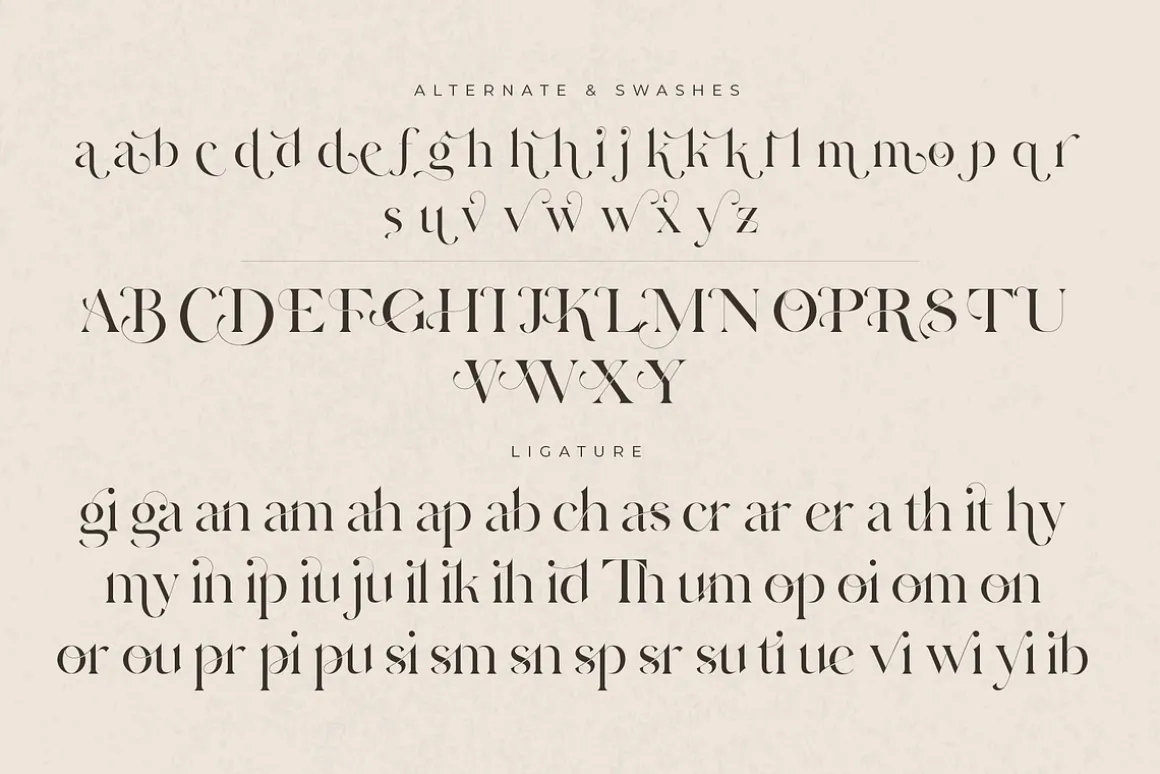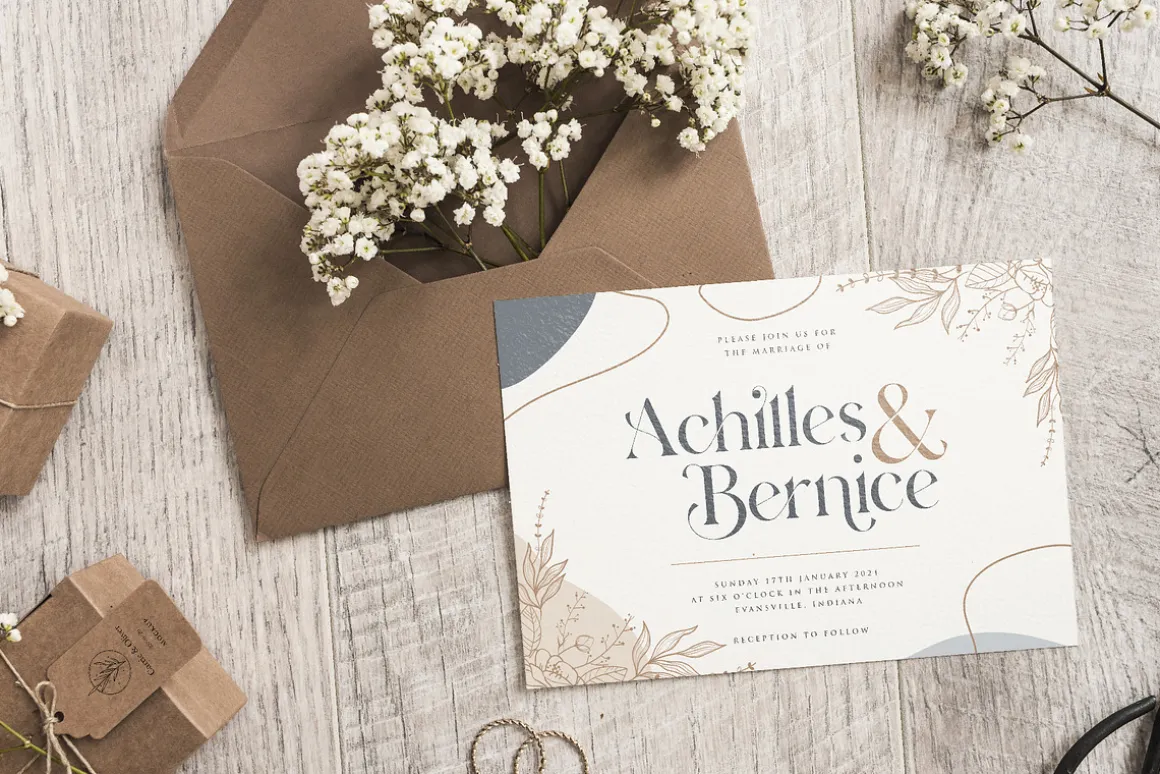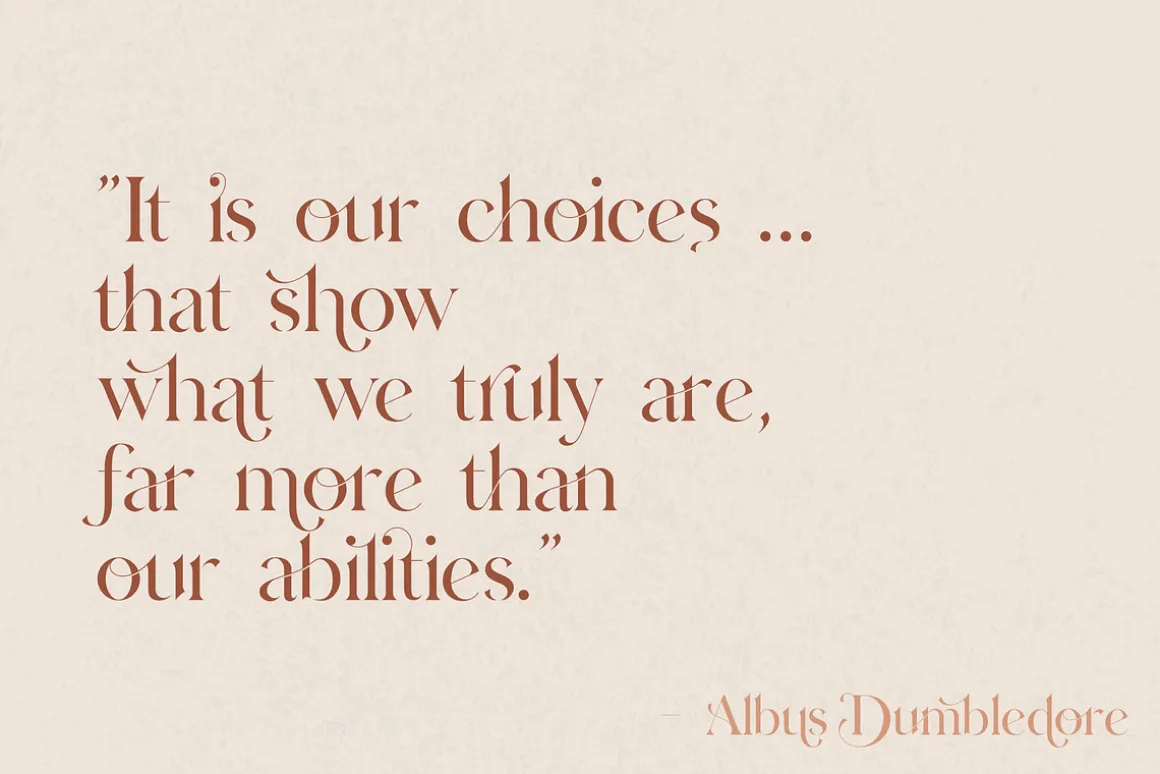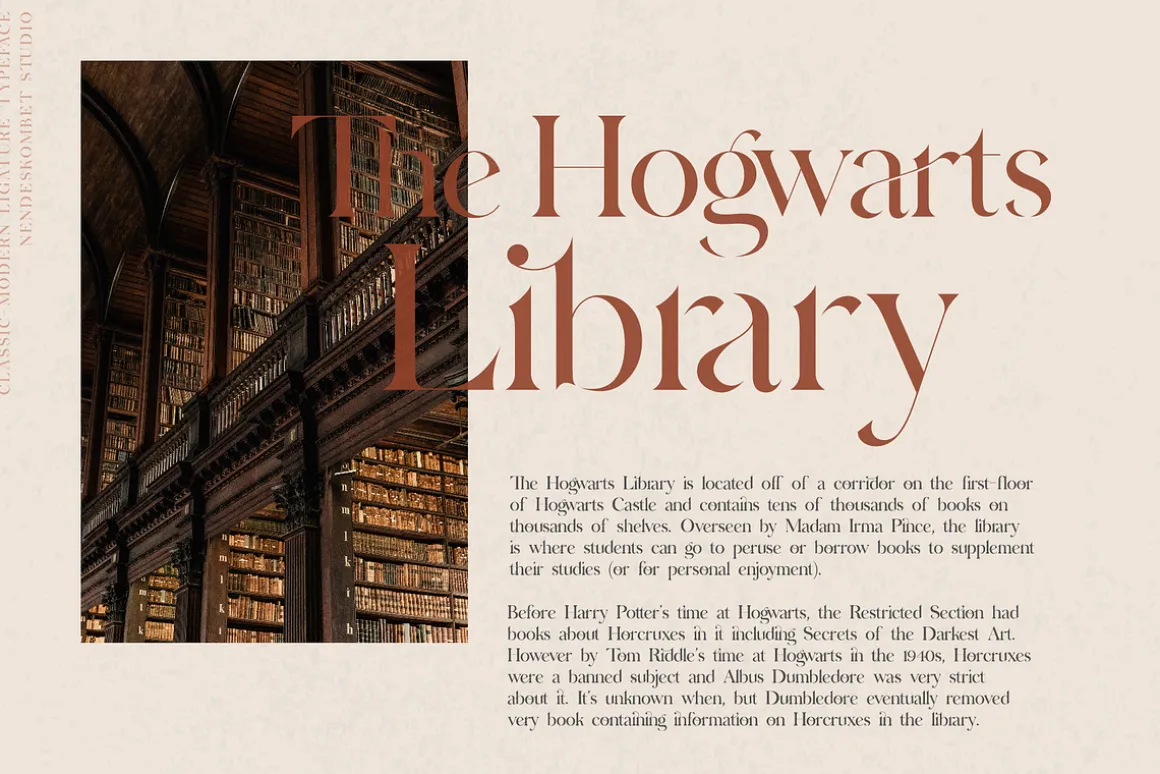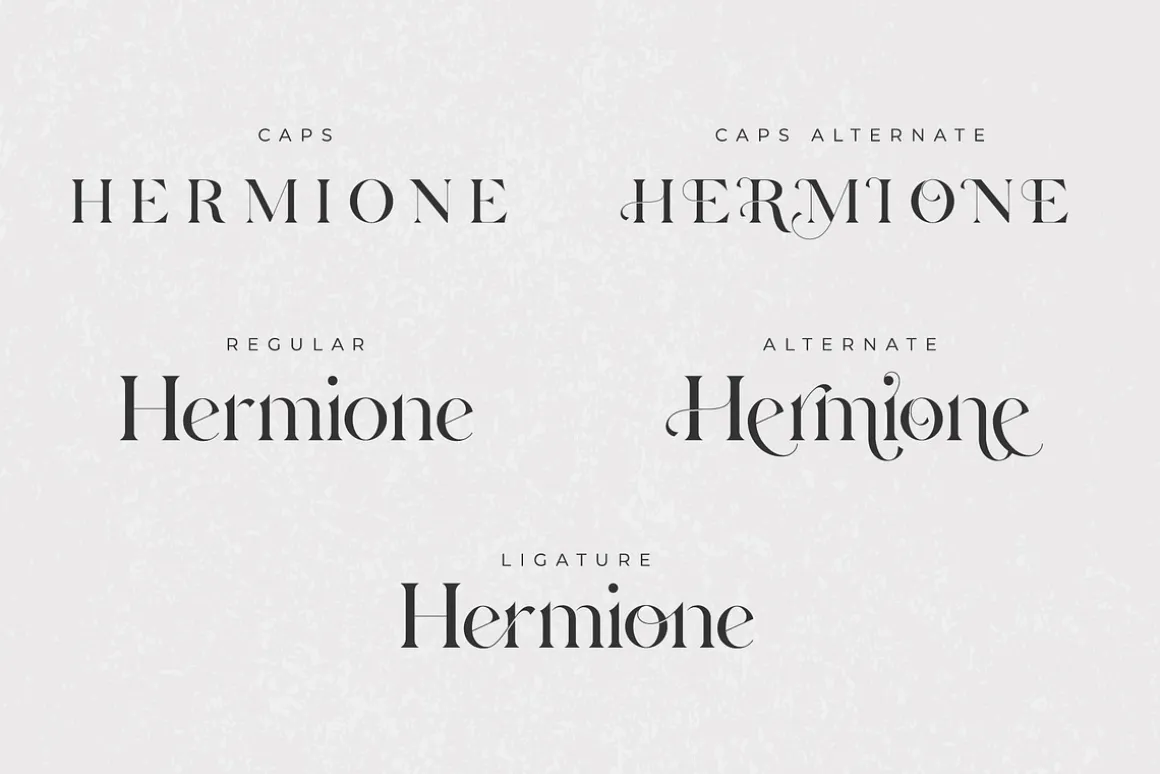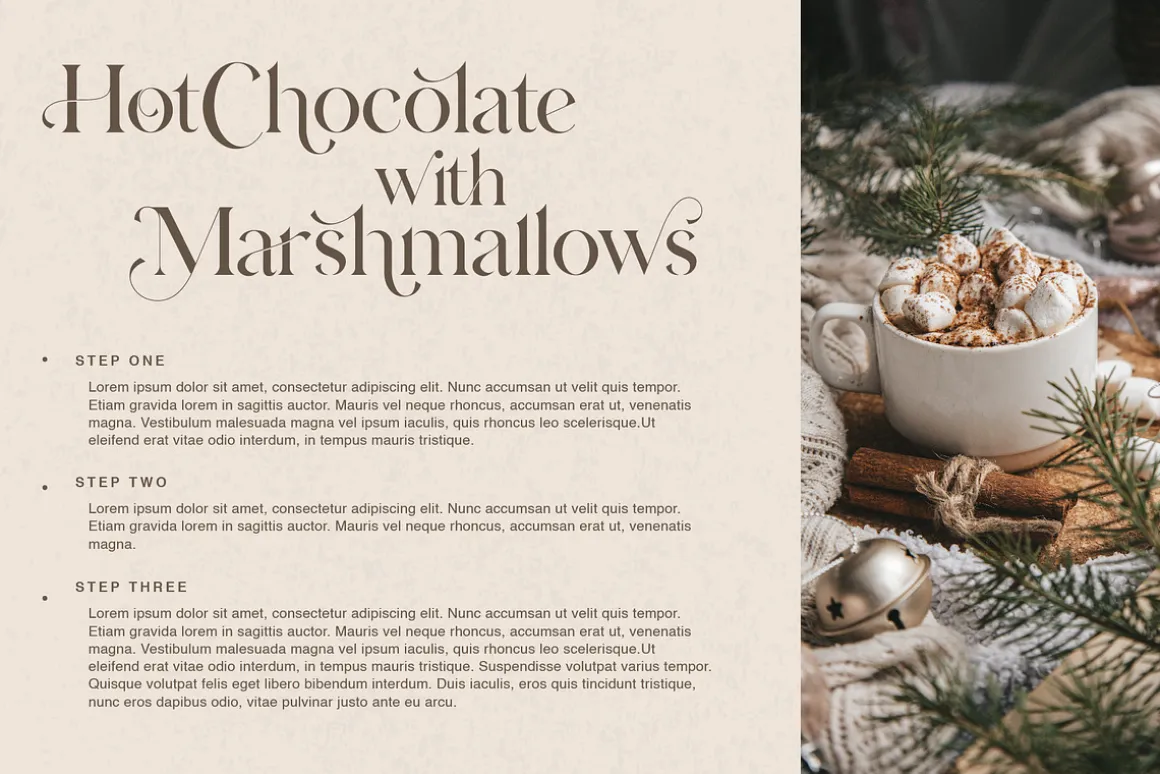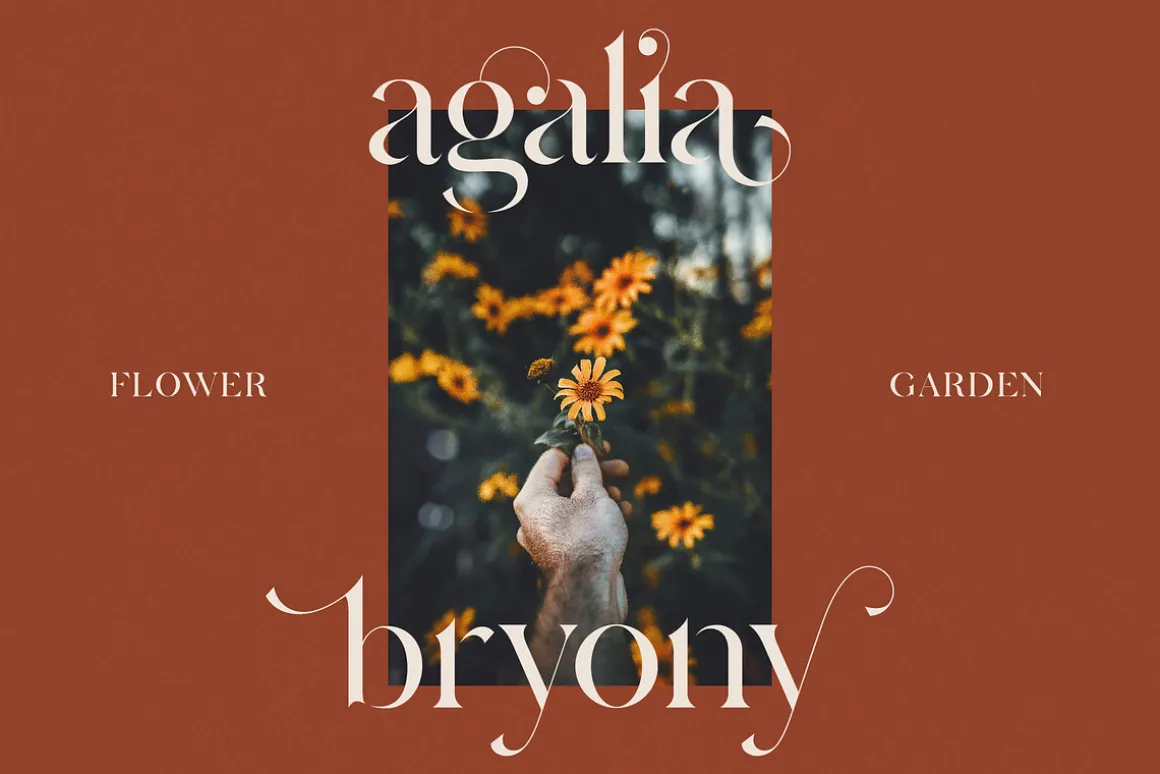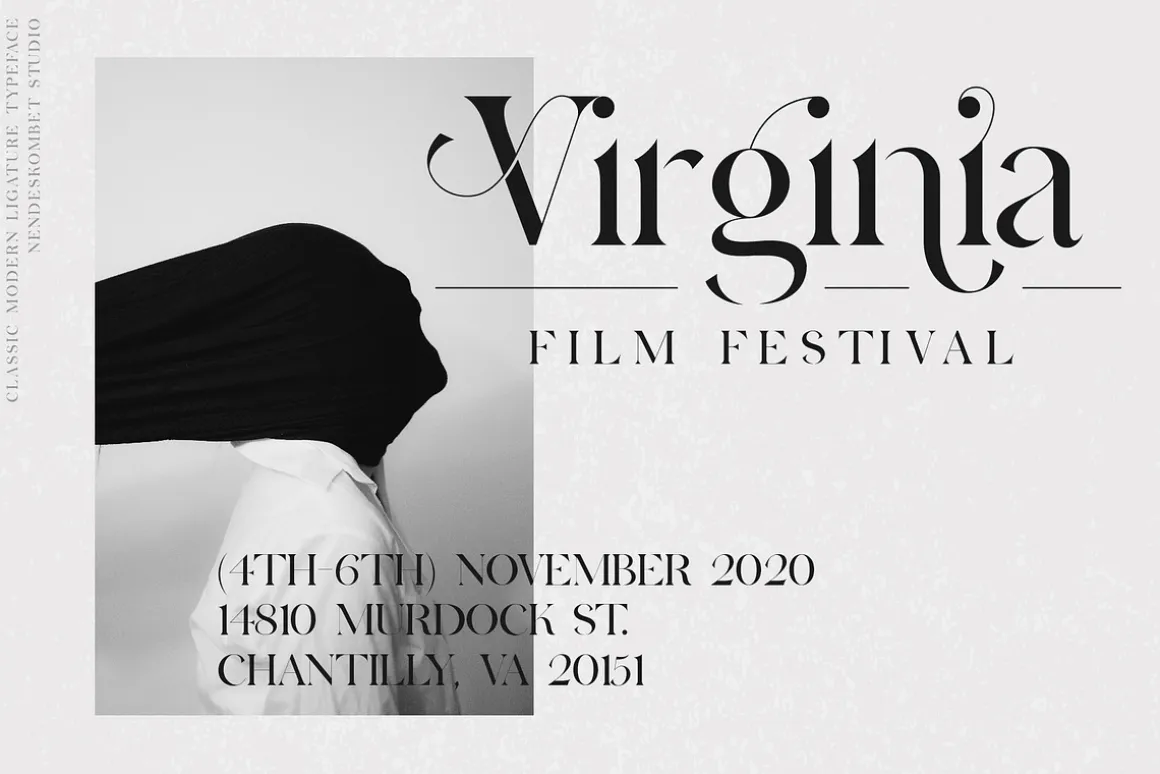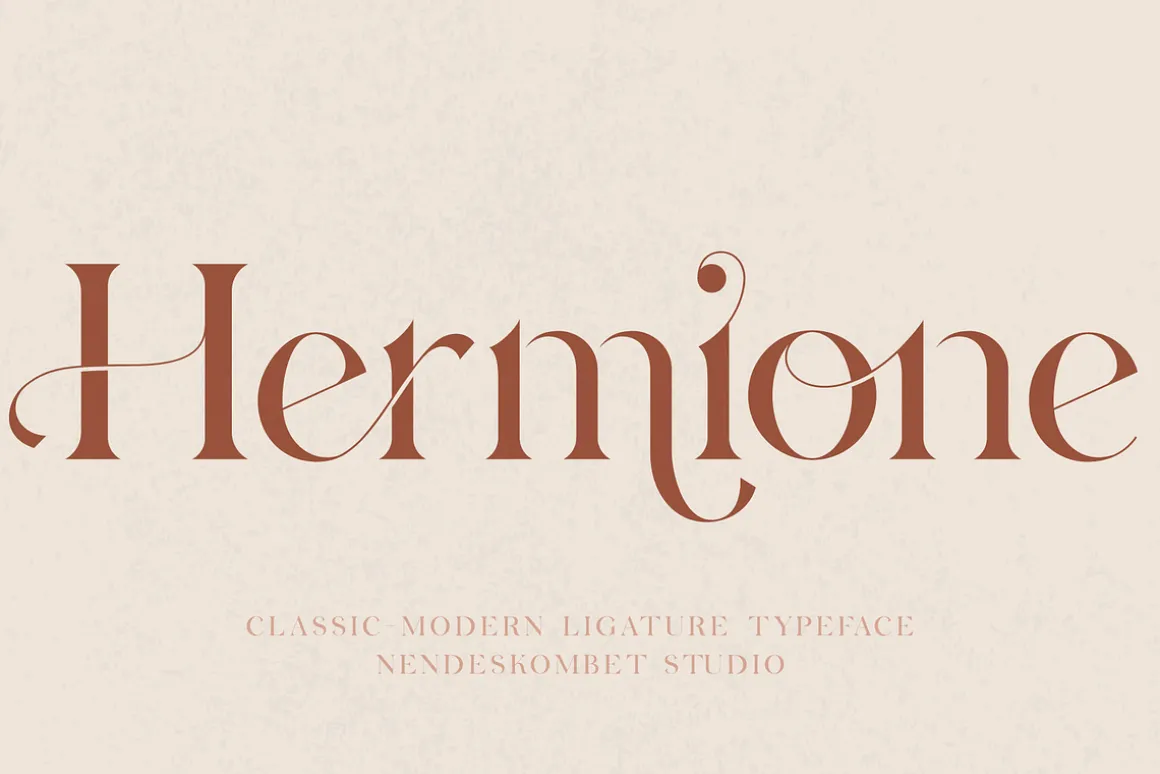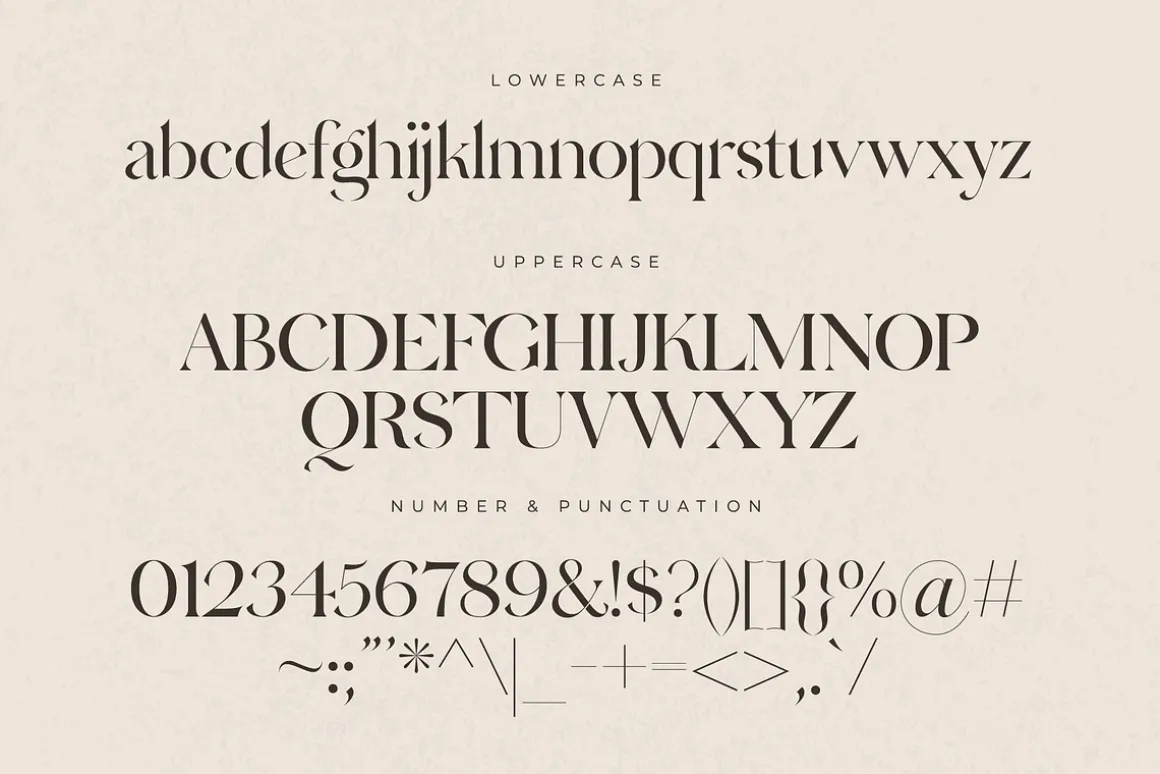
Hermione Classic-Modern Ligature Typeface by NendesKombet Studio
Hermione is a stylish font that is classic, elegant and unique font that uses ligatures to smoothly link letters. Perfect for branding, logos, invitation, masterheads and more. Hermione has 48 ligatures, 63 alternates for upper and lower case as well as numbers and punctuation making it super versatile.
Hermione is also included full set of :
- Uppercase and Lowercase Letters
- Multilingual Symbols
- Numerals
- Punctuation
- Ligatures
- Alternates